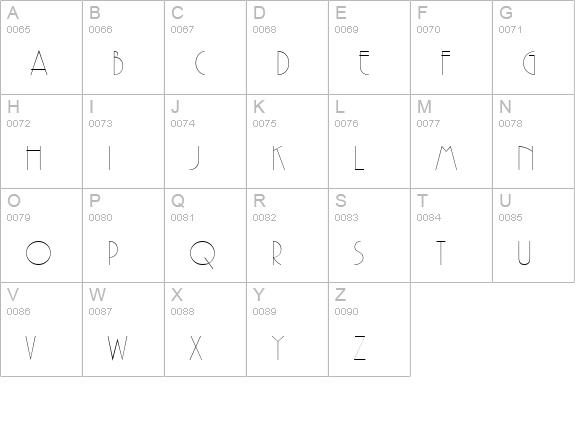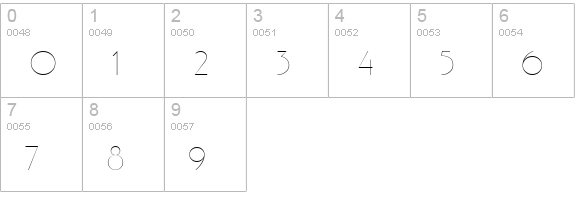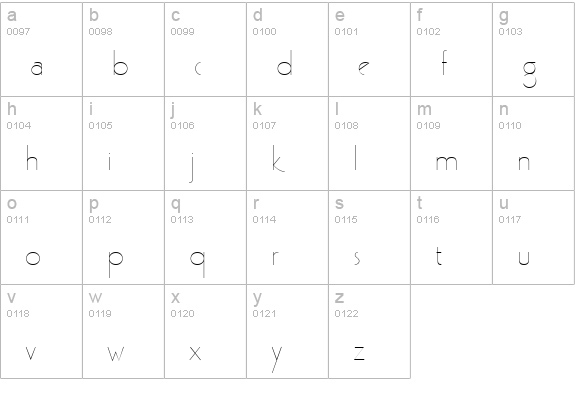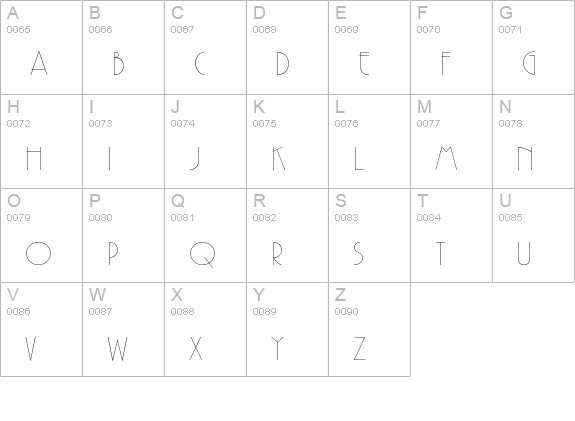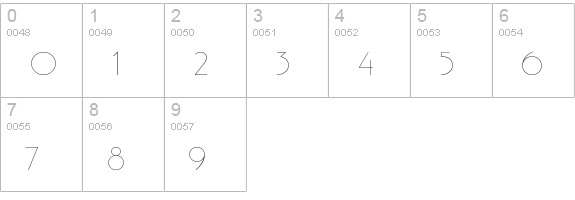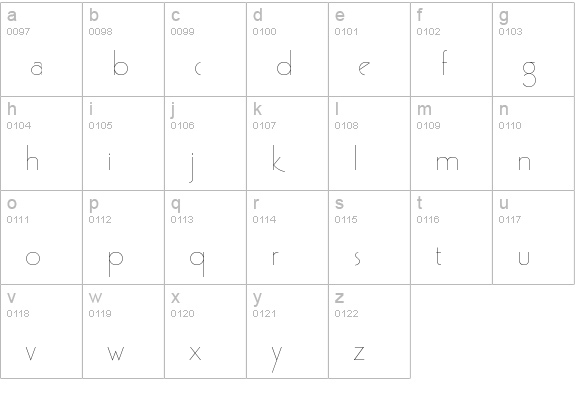
Gaston Normal is the standard, neutral variant in the Gaston typeface family \xE2\x80\x94 well suited to general body text, paragraphs, and standard typographic work.
Gaston Normal font is a classic and elegant typeface that exudes sophistication and style. With its clean lines and timeless appeal, Gaston Normal is perfect for a wide range of design projects, from branding to editorial layouts. This versatile font is easy to read and adds a touch of class to any design. What's even better is that Gaston Normal is available for free download at FontsMarket.com. So whether you're a seasoned designer looking for a new go-to font or a beginner exploring typography for the first time, Gaston Normal is a fantastic choice that won't cost you a penny. Don't miss out on this opportunity to enhance your designs with this stunning typeface - download Gaston Normal today and elevate your projects to the next level.